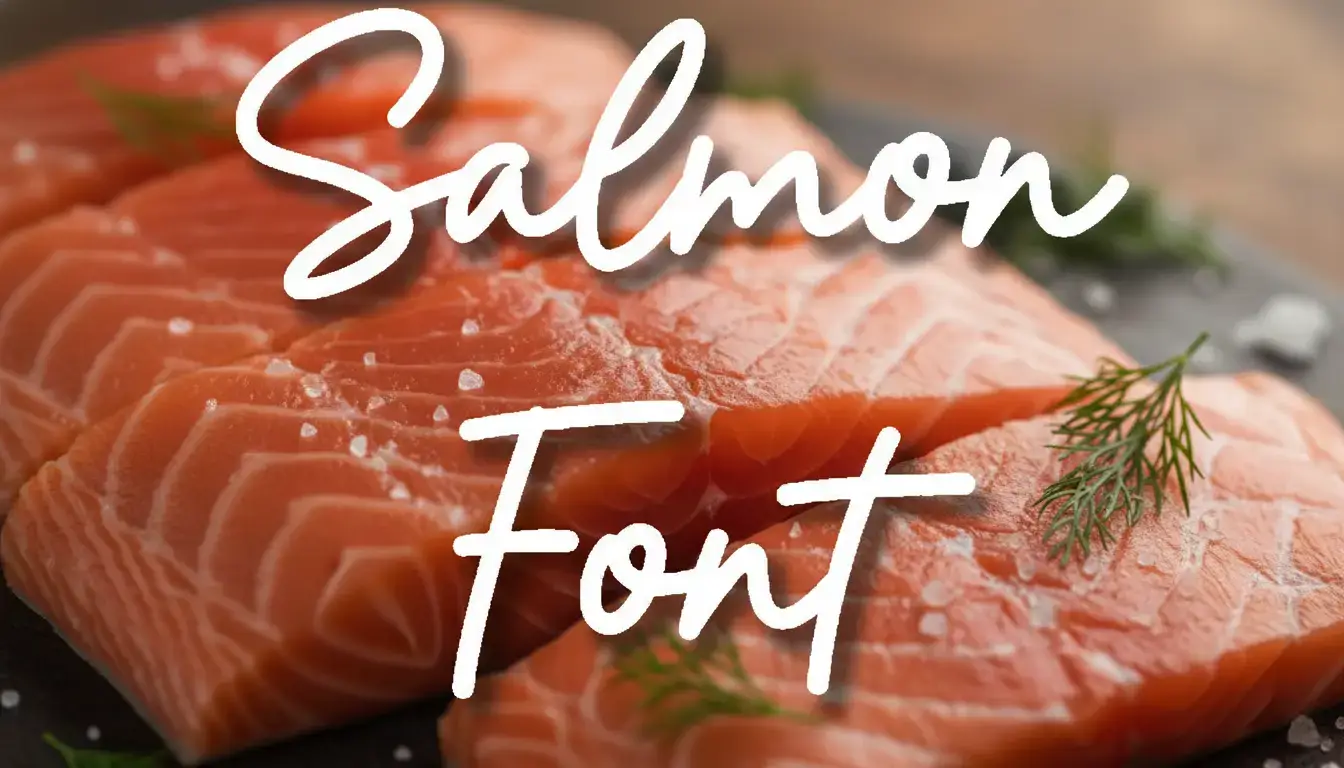
Salmon Font
Salmon is a handwritten font created by Aldi Raya Pradipta and released through Graphix Line Studio. It has a casual, written-with-a-pen look that makes designs feel personal. You can download it for free and test it with your own words in the preview above.
What You Can Type With Salmon
With complete upper and lowercase letters and all ten digits, Salmon is ready for real wording, not just a single headline. Common punctuation such as &, !, ? and @ is included as well. It also has the accented letters you need for Spanish, French, Portuguese and Italian.
Where Salmon Works Best
Think of Salmon for greeting cards, journal pages and friendly social posts. Set it a bit larger than you would a normal text font. Handwriting styles lose their charm once they get too small to read comfortably.
Does Salmon support accented letters?
Yes. Salmon includes the accented letters needed for Spanish, French, Portuguese and Italian, so it works for more than just English.